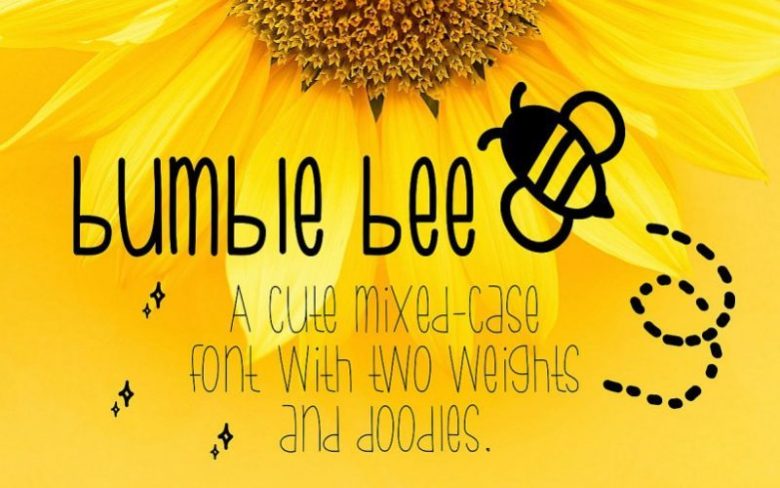
Bumblebee Thin Script Font
Bumble Bee is a cute mixed-case font with funky, youthful letters. This font also includes DOODLES! This font is perfect for an assortment of things and pairs very well with others (especially script fonts!). This font has two weights: Bold and Regular, and you can use this font for all sorts of things